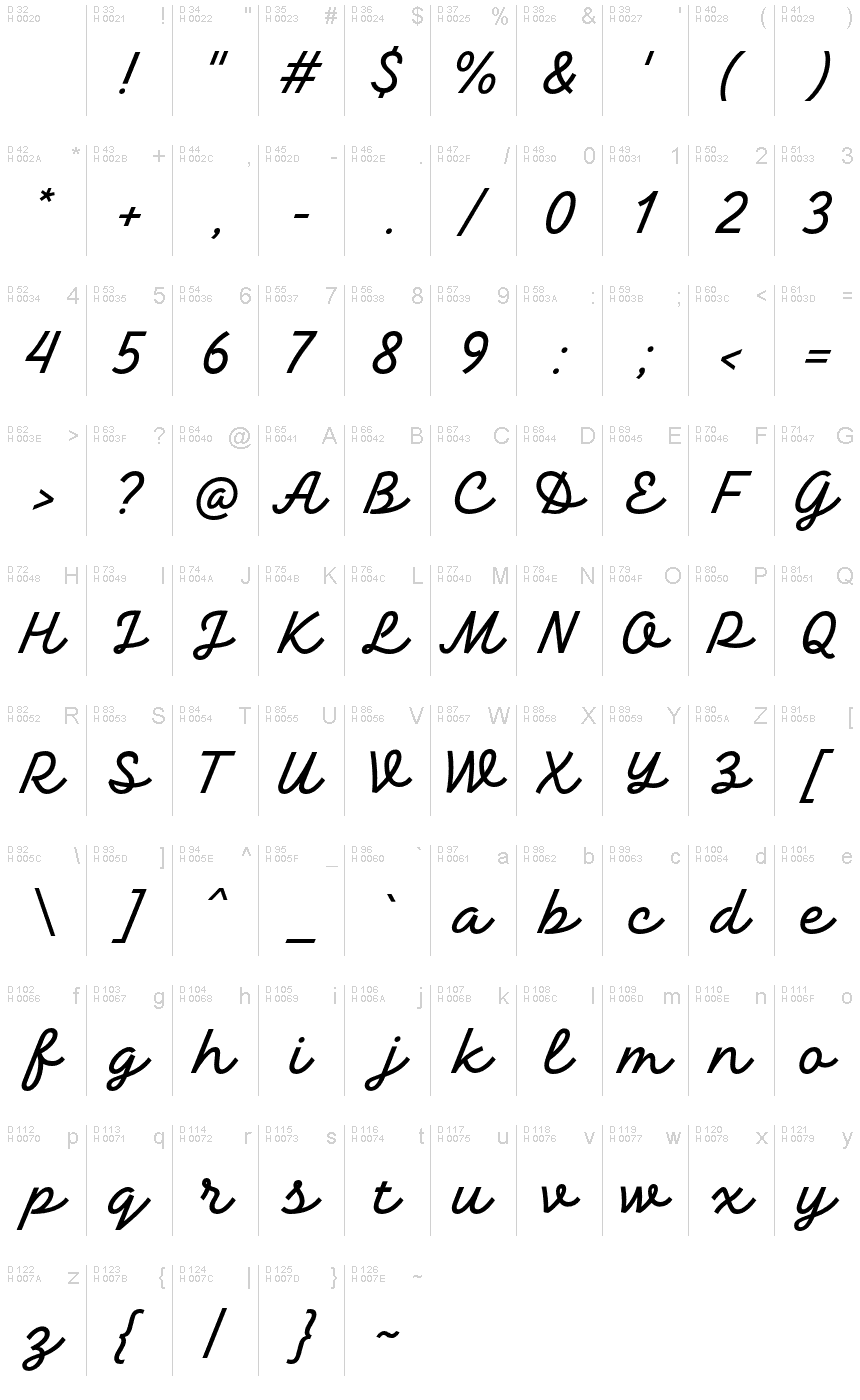
TT Backwards Script Trl Regular
TT Backwards Script is a unique and stunning font that adds a touch of elegance to any project. Designed by TypeType Foundry, this semi-light script font boasts an exquisite calligraphic style that conveys a sense of sophistication and class. Its flowing curves and loops create beautiful cursive letters that are perfect for wedding invitations, greeting cards, and other formal documents. But don't let its refined appearance fool you; TT Backwards Script is also great for more playful projects like product packaging or social media graphics. With its versatility and beauty, this font is sure to make any project stand out.